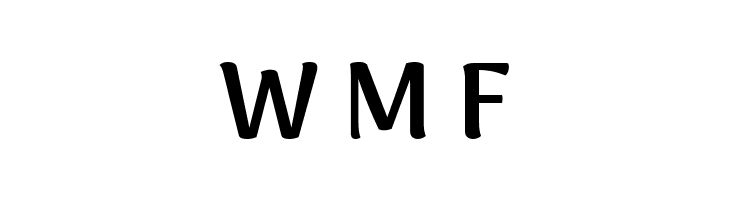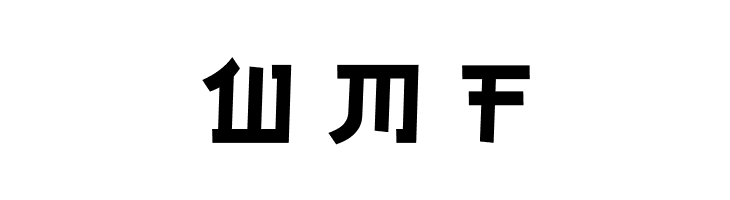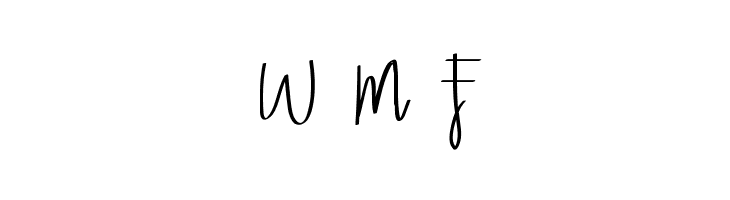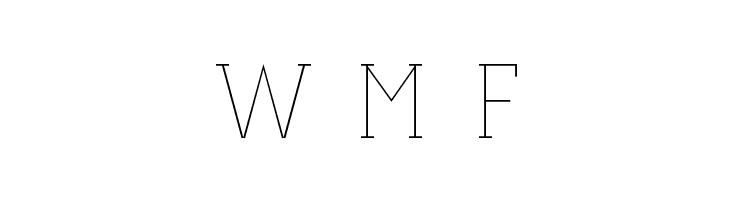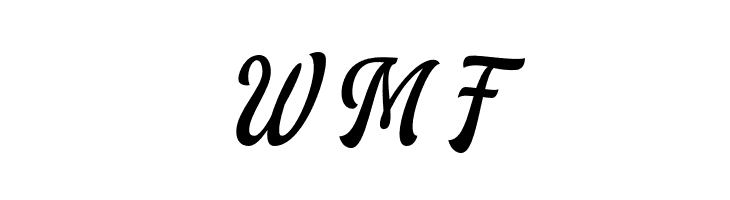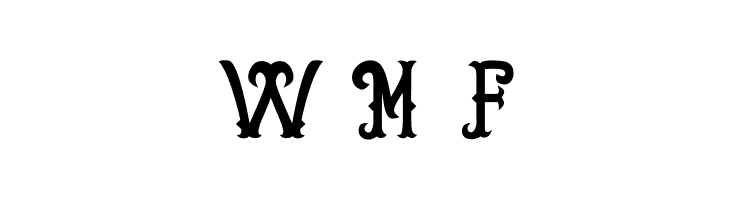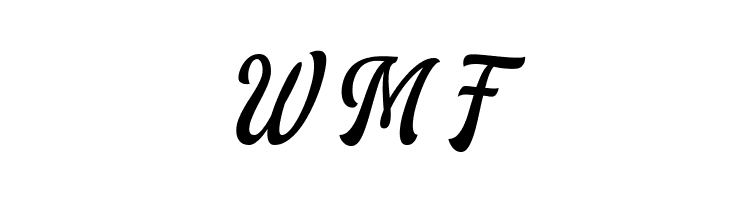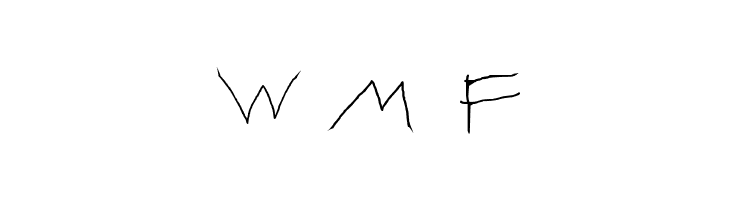
• Ariel Script
An elegant, flowing script font with a natural handwriting style.
• Ariel Script
A modern, elegant script font with flowing, cursive letters.
• AriesA
A bold, decorative font with intricate, gothic-inspired details.
• Ariesta Moon Demo
A whimsical, cursive-like font with flowing, artistic strokes.
• Ariesta Moon Demo Serif
A modern, elegant serif font with thin, elongated strokes and geometric influences.
• AriesthaScript
A flowing, cursive script with elegant loops and swashes.
• AriesthaScript
A flowing, elegant cursive script with interconnected letters and bold uppercase characters.
• arif Italic
• Arigatou Gozaimasu
A bold, angular font with a modern and edgy style.
• ArimaMadurai-Black
A bold, rounded font with a playful yet structured style.